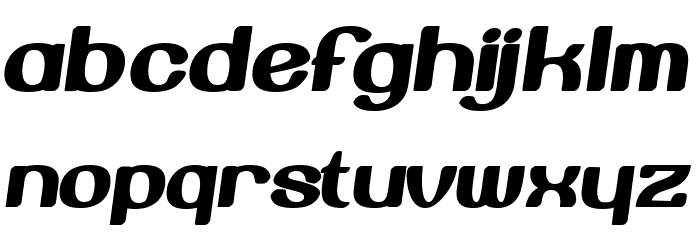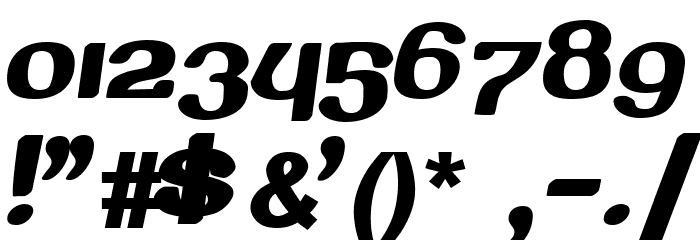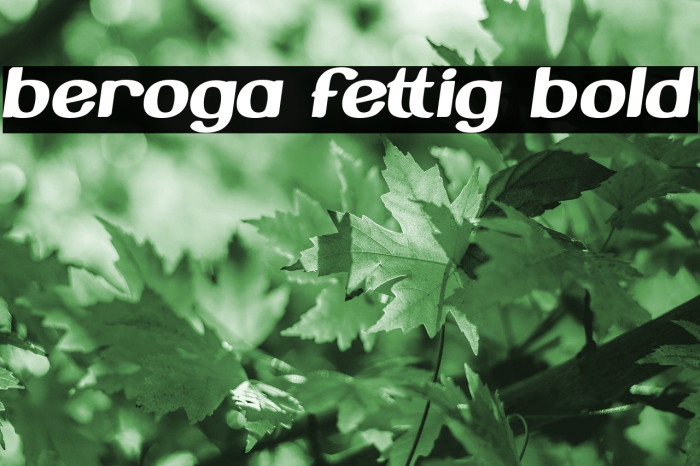
Beroga Fettig Bold Font
This font features a bold and dynamic style with a slight italic slant, giving it a sense of movement and energy. The characters are rounded and smooth, with consistent stroke thickness that provides a uniform appearance. The letters have a modern and sleek design, making them suitable for contemporary applications. The numerals and special characters maintain the same boldness and style, ensuring a cohesive look across all text elements. The font's overall appearance is both strong and approachable, making it versatile for various design needs.
A bold, slightly italicized font with smooth, rounded characters.
- Proposed Projects: Ideal for branding, advertising, headlines, and modern design projects.
- Use Case: Headlines, Logos, Branding